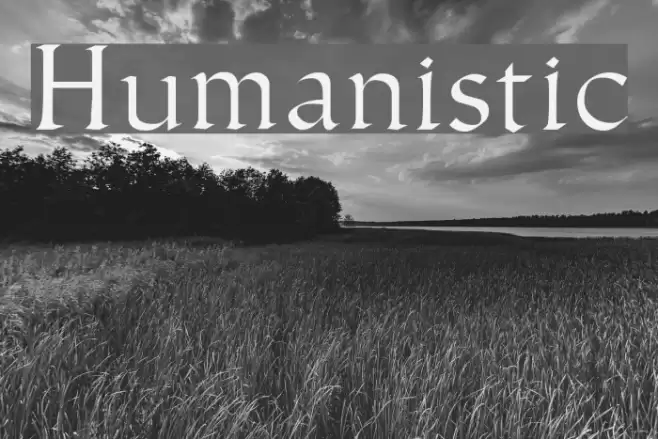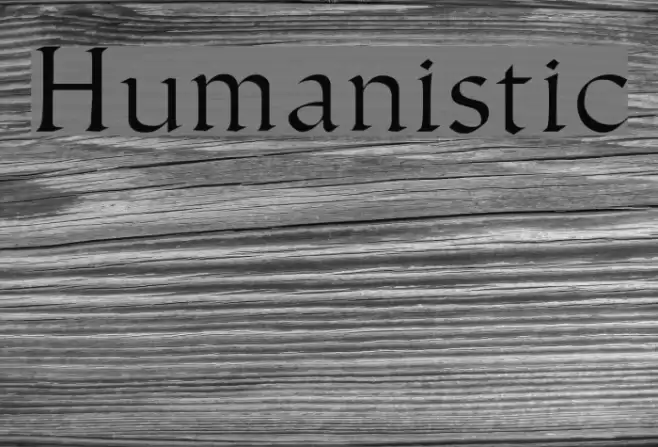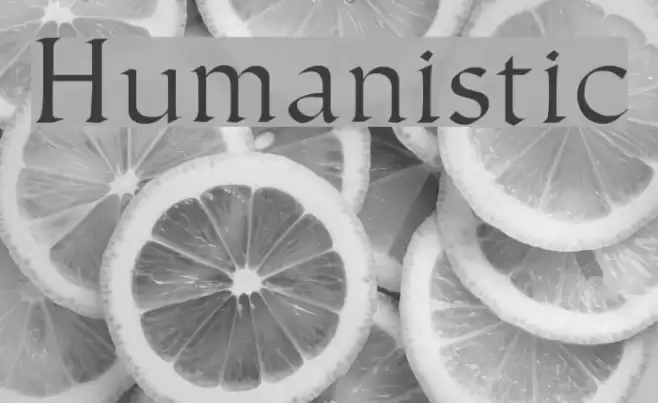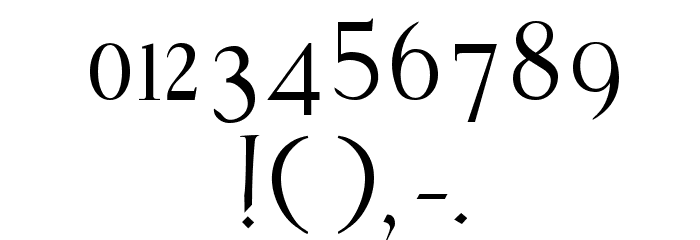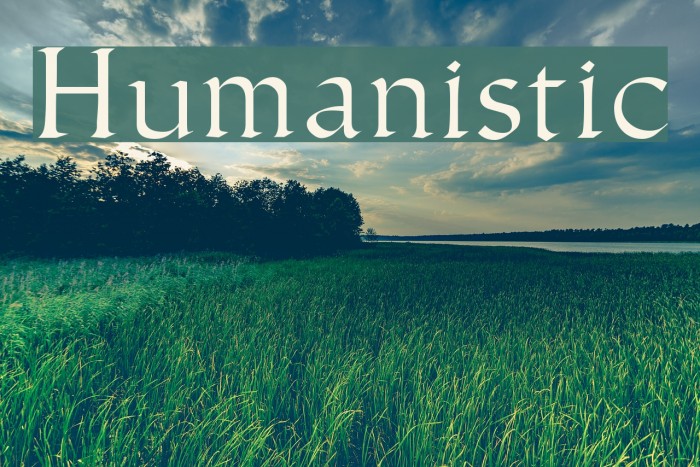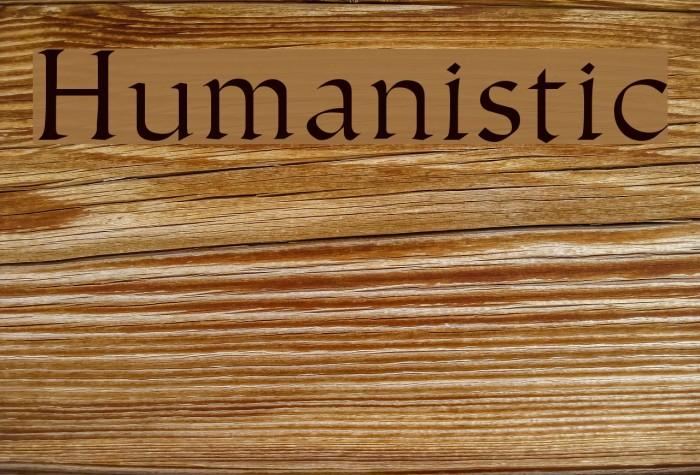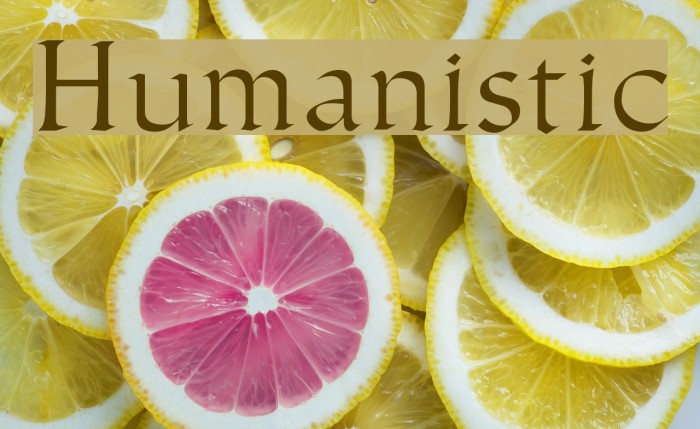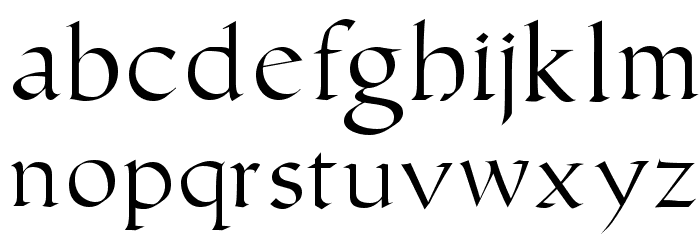
Humanistic Font
Humanistic Description
This font exhibits a classic and elegant style with a humanistic touch, characterized by its calligraphic influence and slight variations in stroke width. The serifs are subtle yet pronounced, adding a touch of sophistication. The uppercase letters are tall and slightly narrow, while the lowercase letters maintain a balanced proportion, enhancing readability. The numerals are distinct and harmonize well with the overall design. Special characters are crafted with the same attention to detail, ensuring consistency throughout the typeface.
A classic, elegant serif font with a humanistic, calligraphic influence from Uncategorized fonts.
- Proposed Projects: Ideal for projects requiring a touch of elegance and tradition, such as wedding invitations, formal event programs, or luxury brand logos.
- Overall Style: Classic
- Use Case: Headlines, Logos, Invitations